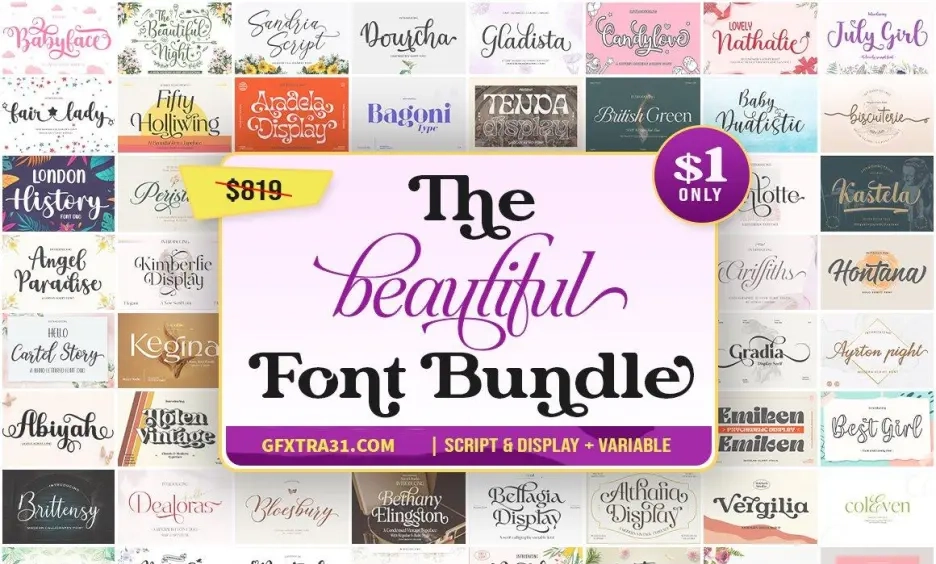
The Beautiful Font Bundle
The Beautiful Font Bundle offers a stunning collection of carefully crafted typefaces designed to elevate your projects. This bundle includes a variety of font styles, from elegant scripts to bold sans-serifs, ensuring you have the perfect type for any occasion.
• Multiple font styles including serif, sans-serif, and script
• Various weights ranging from light to bold
• Easy to read and versatile for different applications
• 10 unique font families
• Character sets that support multiple languages
• Stylistic alternates and ligatures
• Weights: Light, Regular, Bold, and more
Ideal for branding, logos, web design, print materials, and user interfaces. Choose the right font style to match your project’s tone and message.